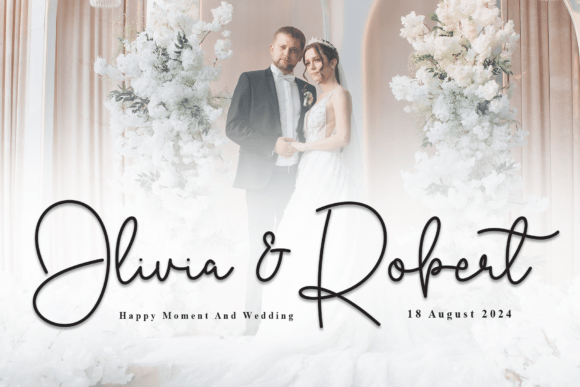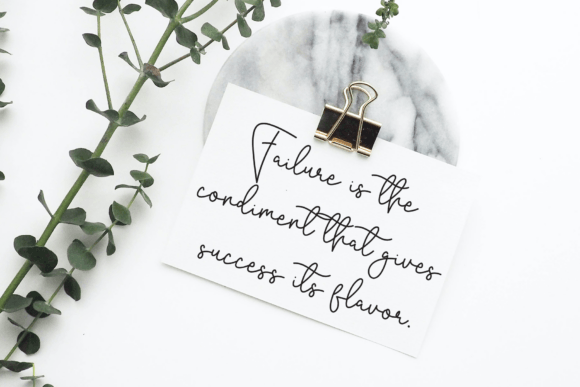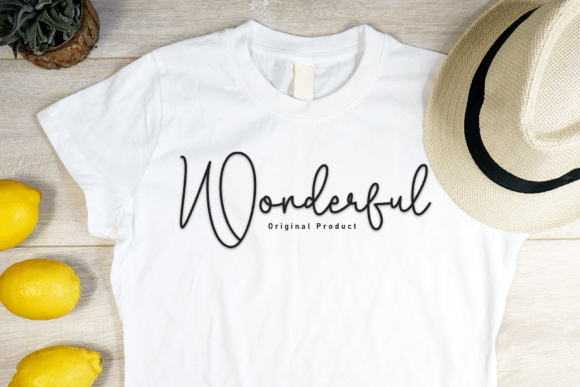
Introduction to Jewerly Handscript Font
Jewelry Handscript is a beautiful handwritten font that looks like elegant cursive writing.
It’s perfect for adding a personal and stylish touch to invitations, cards, and other creative projects The letters flow smoothly, giving a warm and friendly feel.
Key Features of Jewerly Handscript Font
Why Choose Jewerly Handscript Font?
Jewerly Handscript Font offers exceptional quality and versatility, making it a valuable addition to your design toolkit. Whether you’re creating for personal projects or commercial use, Jewerly Handscript Font delivers professional results.